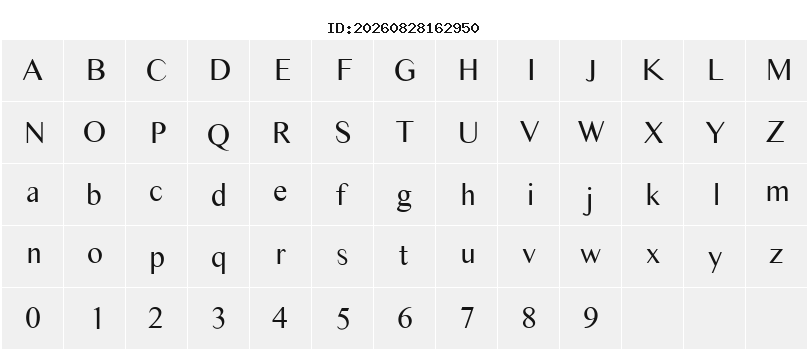
• Font Name: Times Sans Serif
• Full Font Name: Times Sans Serif
• Designer: Mundo da Lua
About Times Sans Serif.ttf
Times Sans Serif.ttf is a modern, elegant sans-serif font designed for ultimate readability and visual harmony. Perfect for branding, headlines, web design, and print materials.